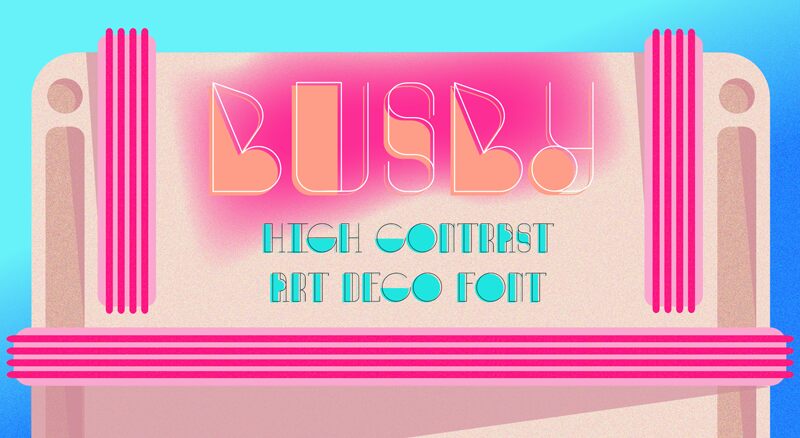
Busby
Busby emerges as a typographic tribute to the roaring splendor of the Art Deco era, masterfully crafted by FontKawaiiCo. This display font exudes a retro charm, resonating with the bold spirit of the 1920s yet perfectly attuned to contemporary design aesthetics. With an extra-bold persona that commands attention, Busby's clean lines and brass light fixture-inspired curves bring a touch of South Beach Miami to any creative canvas.
Envisioned for versatility, Busby is presented in four distinct weights: Regular, Light, Condensed, and Condensed Light. Each variation offers designers an array of expressive options to convey sophistication and timeless elegance across diverse mediums. Whether accentuating fashion branding with millennial appeal or infusing graphic designs with a dash of old-school glamour, Busby stands out as the go-to typeface for those looking to make a statement that bridges past and present with flair.
A Super fun, High Contrast Art Deco Font!